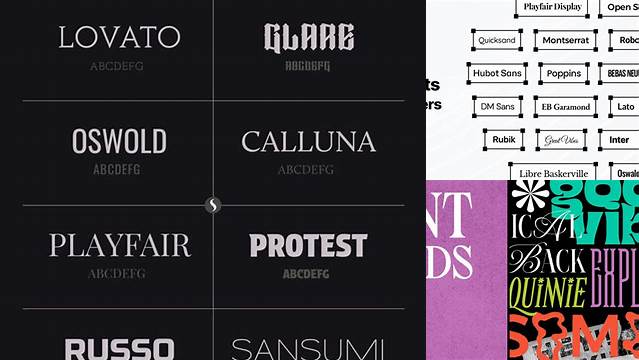
Top Free Fonts For Websites: Best Picks For 2024
Choosing the right fonts for your website can feel like a daunting task, but it's a crucial element in creating a visually appealing and user-friendly online experience. Think of fonts as the voice of your content β they convey tone, personality, and readability. In this article, we'll dive into the world of top free fonts for websites, exploring a variety of options that can elevate your design without breaking the bank. We're talking about fonts that not only look fantastic but also ensure your message comes across clearly and effectively. So, whether you're building a blog, an e-commerce store, or a portfolio, let's discover the perfect typography to make your website shine.
1. Best Sans-Serif Fonts for Modern Websites
When we talk about the top free fonts for websites, sans-serif fonts often take the spotlight, especially for modern designs. These fonts are characterized by their clean, minimalist look, lacking the small decorative strokes (serifs) found in traditional fonts. This makes them incredibly readable on screens, a crucial factor for web design. Consider popular choices like Roboto, Open Sans, and Lato, each offering a unique flavor while maintaining a sleek, contemporary feel. Roboto, for example, is known for its mechanical yet friendly aesthetic, making it versatile for various website types. Open Sans, with its open forms and neutral appearance, is another excellent option for body text, ensuring a pleasant reading experience. Lato, on the other hand, exudes warmth and elegance, perfect for websites aiming for a sophisticated touch. Selecting the right sans-serif font can significantly impact your site's overall aesthetic, providing a clean and accessible look that resonates with your audience. It's like giving your website a fresh, modern makeover β clean lines and clear communication are key!
2. Top Serif Fonts for Enhanced Readability
While sans-serif fonts dominate modern web design, serif fonts still hold a special place, particularly when enhanced readability is a priority. These fonts, distinguished by their small decorative strokes (serifs), can bring a touch of tradition and elegance to your website. Think of fonts like Playfair Display, Merriweather, and Crimson Text. Playfair Display is a classic choice for headings and titles, exuding sophistication and style. Merriweather, designed specifically for screen readability, offers a comfortable reading experience for longer texts. Crimson Text, inspired by classic book typography, lends a refined and scholarly feel to your content. When considering top free fonts for websites, the strategic use of serif fonts can add depth and character, improving the overall visual appeal and ensuring your message is delivered with clarity and grace. It's like adding a touch of timeless elegance to your online presence!
3. Google Fonts: A Treasure Trove of Free Options
Google Fonts is a goldmine when searching for top free fonts for websites. This vast library offers a plethora of options, from classic sans-serifs and elegant serifs to playful display fonts. What makes Google Fonts so appealing is its ease of use and seamless integration with web projects. You can browse and preview fonts directly on the Google Fonts website, then easily embed them into your site with just a few lines of code. This accessibility makes it a favorite among designers and developers. Popular choices like Montserrat, Raleway, and Oswald are just the tip of the iceberg. Montserrat, a geometric sans-serif, is perfect for creating a modern and urban feel. Raleway, with its elegant and slightly condensed form, works well for both headings and body text. Oswald, a reworked classic style, adds a touch of vintage charm to any design. Exploring Google Fonts opens up a world of typographic possibilities, allowing you to find the perfect fonts to match your brand and style, all without costing a dime.
4. Font Pairing: How to Combine Fonts Effectively
Font pairing is an art, and mastering it is crucial when aiming for a cohesive and visually appealing website. It's about finding the top free fonts for websites that complement each other, creating a harmonious balance between different typographic styles. A classic approach is to pair a sans-serif font with a serif font, using one for headings and the other for body text. For instance, combining Open Sans with Merriweather can create a clean and readable layout. Alternatively, you can pair fonts within the same family, using different weights and styles to create visual hierarchy. Think about using Montserrat for headings and its lighter weight variations for body text. The key is to ensure that the fonts you choose work together to enhance readability and reflect your brand's personality. A well-executed font pairing can elevate your website's design, making it more engaging and professional. Itβs like creating a beautiful melody with typography β each font playing its part in the overall harmony.
5. Font Size and Readability: Best Practices
Font size plays a pivotal role in readability, making it a crucial aspect to consider when choosing top free fonts for websites. The goal is to ensure your text is easily legible across different devices and screen sizes. Generally, a minimum font size of 16 pixels is recommended for body text on the web. This provides a comfortable reading experience for most users. Headings, of course, should be larger to create visual hierarchy and guide the reader through your content. Experimenting with different font sizes and line heights can significantly impact how your content is perceived. Too small, and your text becomes a strain to read; too large, and your layout can look cluttered. Finding the sweet spot ensures that your message is not only visually appealing but also easily accessible to your audience. It's like crafting the perfect invitation β ensuring everyone can read the details and feel welcome.
6. Font Weight and Style: Creating Visual Hierarchy
Font weight and style are powerful tools for creating visual hierarchy on your website. By using different weights (e.g., regular, bold, italic) and styles (e.g., normal, oblique), you can guide your reader's eye and emphasize key information. When selecting top free fonts for websites, consider the range of weights and styles available. A font family with multiple options provides greater flexibility in your design. For example, using a bold font weight for headings and a regular weight for body text can clearly distinguish different sections of your content. Italics can be used to highlight specific words or phrases, while different font styles can add visual interest. The strategic use of font weight and style not only improves readability but also enhances the overall aesthetic appeal of your website. It's like painting a picture with words β using different strokes and shades to create depth and dimension.
7. Web-Safe Fonts vs. Web Fonts: Understanding the Difference
Understanding the difference between web-safe fonts and web fonts is essential when optimizing your website's typography. Web-safe fonts are those that are pre-installed on most operating systems, ensuring they will display correctly for all users. Examples include Arial, Times New Roman, and Courier New. While these fonts offer reliability, they can also limit your design options. Web fonts, on the other hand, are hosted online and can be embedded into your website using services like Google Fonts or Adobe Fonts. This opens up a vast array of typographic possibilities, allowing you to choose from thousands of unique fonts. When considering top free fonts for websites, web fonts are often the preferred choice due to their design flexibility. However, it's crucial to optimize web fonts to ensure they load quickly and don't impact your website's performance. It's like choosing between a standard wardrobe and a custom-designed collection β web fonts offer the chance to create a truly unique and stylish look.
8. Font Licensing: What You Need to Know
Font licensing is a crucial aspect often overlooked when choosing top free fonts for websites. While many fonts are available for free, it's essential to understand the terms of their licenses to ensure you're using them legally. Most free fonts come with specific usage restrictions, such as whether they can be used for commercial projects or if attribution is required. Google Fonts, for instance, offers fonts under the Open Font License (OFL), which allows for both personal and commercial use, even in print. However, some free fonts may have more restrictive licenses, so it's always wise to check the details before incorporating them into your project. Ignoring font licensing can lead to legal issues, so taking the time to understand the terms ensures you're using your chosen fonts responsibly. Itβs like reading the fine print on a contract β making sure youβre fully aware of your rights and responsibilities.
9. Best Display Fonts for Eye-Catching Headlines
Display fonts are your secret weapon for crafting eye-catching headlines and titles that grab attention. These fonts are designed to make a statement, often featuring unique and decorative styles that set them apart from body text fonts. When considering top free fonts for websites, display fonts can add personality and flair to your design. Think of fonts like Bebas Neue, a clean and modern sans-serif perfect for headlines, or Oswald, a reworked classic style that exudes vintage charm. Playfair Display, a sophisticated serif font, is another excellent choice for headings, lending a touch of elegance to your site. The key is to use display fonts sparingly, reserving them for key titles and headings to create visual impact. A well-chosen display font can instantly elevate your website's aesthetic, making it more engaging and memorable. Itβs like adding a splash of color to a black-and-white canvas β creating a focal point that draws the eye.
10. Monospace Fonts: When to Use Them
Monospace fonts, where each character occupies the same horizontal space, have a unique and distinctive look. While not typically used for body text, they can be incredibly effective in specific contexts. When exploring top free fonts for websites, consider monospace fonts for displaying code snippets, technical documentation, or creating a retro, typewriter-inspired aesthetic. Fonts like Source Code Pro and Roboto Mono are popular choices in this category. Source Code Pro, designed specifically for coding environments, offers excellent readability and clarity. Roboto Mono, part of the Roboto family, provides a clean and modern monospace option. The consistent width of characters in monospace fonts makes them ideal for scenarios where alignment is crucial. Think of them as the organized and precise members of the font family β perfect for situations where consistency and clarity are paramount.
11. Hand-Drawn Fonts: Adding a Personal Touch
Hand-drawn fonts can inject a dose of personality and warmth into your website, making it feel more approachable and authentic. These fonts mimic the look of handwritten text, adding a personal touch that can resonate with your audience. When browsing top free fonts for websites, consider hand-drawn options like Patrick Hand or Indie Flower. Patrick Hand, with its casual and legible style, is perfect for creating a friendly and informal vibe. Indie Flower, on the other hand, exudes a playful and whimsical feel. Hand-drawn fonts are particularly effective for websites aiming for a creative or artistic aesthetic. However, it's essential to use them sparingly, as they can be less readable than traditional fonts for large blocks of text. Think of them as the handwritten note in a digital world β adding a personal touch that makes your message feel more genuine.
12. Best Fonts for E-commerce Websites
Choosing the right fonts for an e-commerce website is crucial for creating a trustworthy and professional online shopping experience. Your typography should not only be visually appealing but also ensure that product information and calls-to-action are clear and easy to read. When selecting top free fonts for websites geared towards e-commerce, consider options that balance elegance with clarity. Sans-serif fonts like Open Sans and Roboto are excellent choices for product descriptions and body text, providing a clean and modern look. For headings and product titles, you might opt for a slightly bolder sans-serif or a subtle serif font like Montserrat or Lato to add visual interest. The goal is to create a seamless and enjoyable shopping experience, where customers can easily find and understand product details. It's like setting the stage for a successful transaction β ensuring that every element, including typography, contributes to a positive impression.
13. Top Fonts for Blogs and Content Websites
Blogs and content websites thrive on readability, making font selection a critical factor in keeping readers engaged. When exploring top free fonts for websites in this category, prioritize fonts that offer a comfortable reading experience for longer texts. Serif fonts like Merriweather and Crimson Text are excellent choices for body text, as their serifs help guide the reader's eye across the page. For headings, consider using a sans-serif font like Roboto or Open Sans to create a clear visual hierarchy. The key is to choose fonts that work well together, ensuring your content is not only visually appealing but also easily digestible. Think of your fonts as the backbone of your content β providing the structure and support that allows your message to shine.
14. Fonts for Portfolio Websites: Showcasing Your Work
Portfolio websites are all about showcasing your work in the best possible light, and your font choices play a significant role in achieving this. When selecting top free fonts for websites for your portfolio, aim for typography that is both stylish and professional. A clean sans-serif font like Montserrat or Raleway can create a modern and sophisticated look, allowing your work to take center stage. For headings, you might consider a slightly bolder font or a display font that reflects your personal style. The goal is to create a visually appealing and easy-to-navigate website that highlights your skills and creativity. Think of your fonts as the frame around a masterpiece β enhancing the artwork without overshadowing it.
15. Font Loading: Optimizing Website Performance
Font loading can significantly impact your website's performance, so it's essential to optimize how your fonts are delivered. When incorporating top free fonts for websites, ensure you're using best practices to minimize load times. One common strategy is to use web fonts from a Content Delivery Network (CDN) like Google Fonts, which are optimized for fast delivery. Additionally, consider using font-display properties in your CSS to control how fonts are rendered during loading. This can prevent the dreaded flash of unstyled text (FOUT) or flash of invisible text (FOIT). Choosing only the font weights and styles you need can also reduce file sizes and improve loading times. Think of font loading as the delivery system for your typography β ensuring your fonts arrive promptly and efficiently without slowing down your website.
16. Best Fonts for Mobile-Friendly Websites
Creating a mobile-friendly website requires careful consideration of typography, as readability can be particularly challenging on smaller screens. When selecting top free fonts for websites optimized for mobile devices, prioritize fonts that are clear, legible, and well-spaced. Sans-serif fonts like Roboto, Open Sans, and Lato are excellent choices, as their clean lines ensure readability even at smaller sizes. It's also crucial to use appropriate font sizes and line heights to prevent text from feeling cramped or difficult to read. Testing your font choices on various devices is essential to ensure they look great and function well across different screen sizes. Think of your mobile typography as a pocket-sized message β ensuring your message is clear and accessible no matter the device.
17. Using Font Combinations for a Unique Look
Using font combinations effectively can give your website a unique and professional look. Pairing fonts involves selecting two or three fonts that complement each other, creating visual interest and hierarchy. When exploring top free fonts for websites, consider combining a serif font for headings with a sans-serif font for body text, or vice versa. For example, you might pair Playfair Display (serif) with Montserrat (sans-serif) or Roboto (sans-serif) with Merriweather (serif). Another approach is to use different weights and styles within the same font family, such as using a bold weight for headings and a regular weight for body text. The key is to ensure your font combinations enhance readability and reflect your brand's personality. Think of font combinations as a well-coordinated outfit β ensuring each piece complements the others to create a cohesive and stylish look.
18. The Importance of Line Height and Letter Spacing
Line height and letter spacing are often overlooked but play a crucial role in readability. Adjusting these properties can significantly impact how easily your text is read and understood. When selecting top free fonts for websites, pay attention to the default line height and letter spacing, and adjust them as needed. Generally, a line height of 1.5 to 1.7 times the font size is recommended for body text. This provides enough space between lines, making the text easier to scan. Similarly, adjusting letter spacing can improve readability, particularly for display fonts. Think of line height and letter spacing as the breathing room for your text β ensuring each word and line has enough space to be easily seen and understood.
19. Best Free Fonts for Minimalist Website Designs
Minimalist website designs often rely on clean and simple typography to convey their message effectively. When selecting top free fonts for websites with a minimalist aesthetic, prioritize fonts that are understated yet elegant. Sans-serif fonts like Open Sans, Lato, and Roboto are excellent choices, as their clean lines and neutral appearance complement minimalist designs. A lighter font weight can further enhance the minimalist feel. The key is to choose fonts that don't compete with the content but rather support it, allowing your message to take center stage. Think of your fonts as the supporting cast in a minimalist production β playing a crucial role without stealing the spotlight.
20. Choosing Fonts That Reflect Your Brand Personality
Your font choices should reflect your brand's personality, conveying the right tone and message to your audience. When exploring top free fonts for websites, consider how each font aligns with your brand values and identity. For example, a playful and whimsical brand might opt for a hand-drawn font or a bold display font, while a professional and sophisticated brand might choose a classic serif font or a clean sans-serif. Think about the emotions and associations you want your brand to evoke, and select fonts that align with those feelings. It's like choosing the right outfit for an occasion β ensuring your attire reflects the tone and purpose of the event.
21. How to Use Free Font Resources Effectively
There are numerous free font resources available online, but knowing how to use them effectively is crucial for finding the perfect fonts for your website. When searching for top free fonts for websites, start with reputable sources like Google Fonts, Font Squirrel, and DaFont. These platforms offer a wide range of options and often provide information about font licenses and usage restrictions. Use filters and categories to narrow down your search, and preview fonts in different contexts to see how they look in your design. It's also helpful to read reviews and recommendations from other designers to get insights into font quality and usability. Think of free font resources as a treasure trove β knowing how to navigate and explore them effectively will help you uncover hidden gems.
22. Avoiding Common Font Mistakes in Web Design
Avoiding common font mistakes is essential for creating a professional and user-friendly website. One common error is using too many different fonts, which can create a cluttered and inconsistent look. Stick to a maximum of two or three fonts to maintain visual harmony. Another mistake is choosing fonts that are difficult to read, particularly for body text. Prioritize readability and legibility when selecting fonts. Additionally, ensure your fonts are properly sized and spaced for optimal viewing on different devices. When browsing top free fonts for websites, keep these pitfalls in mind to ensure your typography enhances rather than detracts from your design. Think of these mistakes as typographical traps β being aware of them will help you navigate the world of font selection with confidence.
23. Best Practices for Font Accessibility
Font accessibility is a critical consideration for ensuring your website is inclusive and usable by everyone, including individuals with visual impairments. When selecting top free fonts for websites, prioritize fonts that are clear, legible, and well-spaced. Ensure your font sizes are large enough for easy reading, and provide sufficient contrast between text and background colors. Avoid using fonts that are overly decorative or stylized, as these can be difficult to read. Additionally, provide alternative text options and use semantic HTML to improve accessibility for screen readers. Think of font accessibility as creating a welcoming space for all users β ensuring everyone can access and enjoy your content.
24. How Font Choice Impacts User Experience
Font choice has a direct impact on user experience, influencing how visitors perceive and interact with your website. The right fonts can enhance readability, create visual interest, and reinforce your brand's personality. Conversely, poor font choices can lead to a frustrating user experience, making your site difficult to navigate and read. When exploring top free fonts for websites, consider how each font will impact your users. Prioritize readability for body text, and use display fonts sparingly to draw attention to key elements. Ensure your fonts are well-sized and spaced for optimal viewing on different devices. Think of font choice as the voice of your website β ensuring it speaks clearly and engagingly to your audience.
25. Trends in Web Typography for 2024
Staying up-to-date with trends in web typography can help you create a modern and stylish website. In 2024, expect to see a continued emphasis on clean and legible sans-serif fonts, as well as the resurgence of classic serif fonts for a touch of elegance. Bold typography and large font sizes are also popular, creating visual impact and drawing attention to key messages. Font pairing remains a key trend, with designers experimenting with different combinations to create unique and engaging designs. When browsing top free fonts for websites, keep these trends in mind to ensure your typography is current and relevant. Think of these trends as the fashion runways of the web β offering inspiration and guidance for your typographic style.
26. Best Font Resources for Inspiration
Finding inspiration for your font choices can be a creative and rewarding process. Numerous resources online can help you discover new fonts and explore different typographic styles. Websites like Typewolf, Fonts in Use, and Awwwards showcase examples of excellent typography in web design, providing a wealth of inspiration. Font blogs and articles can offer insights into font trends and best practices. Additionally, exploring design portfolios and case studies can help you see how different fonts are used in real-world projects. When searching for top free fonts for websites, use these resources to fuel your creativity and find the perfect fonts for your design. Think of these resources as a muse for your typography β offering ideas and encouragement to help you craft a visually stunning website.
27. Using Font Display Property for Better Loading
The font-display property in CSS offers a powerful way to control how fonts are rendered during loading, improving your website's perceived performance. This property allows you to specify how the browser should handle font loading, preventing issues like the flash of unstyled text (FOUT) or flash of invisible text (FOIT). When incorporating top free fonts for websites, using font-display can create a smoother and more visually appealing loading experience. Options like font-display: swap tell the browser to display the text immediately using a fallback font, then swap to the custom font once it's loaded. Other options include font-display: fallback, font-display: optional, and font-display: block, each offering different approaches to font loading. Think of font-display as the traffic controller for your fonts β ensuring they arrive smoothly and efficiently without causing delays.
28. How to Embed Free Fonts on Your Website
Embedding free fonts on your website is a straightforward process, especially when using resources like Google Fonts. Most font providers offer easy-to-use code snippets that you can simply copy and paste into your website's HTML or CSS. When selecting top free fonts for websites from Google Fonts, for example, you can choose the font styles and weights you need, and Google Fonts will generate the necessary code. This code typically includes a <link> tag for your HTML and CSS rules to apply the font to your text. Alternatively, you can download the font files and host them on your own server, using CSS @font-face rules to define the font. Think of embedding fonts as adding the finishing touch to your design β bringing your typography to life on the web.
29. Best Font File Formats for Web Use
Choosing the right font file formats is crucial for ensuring your fonts display correctly and load efficiently on the web. Modern web browsers support various font formats, but some are more optimized for web use than others. When incorporating top free fonts for websites, prioritize formats like WOFF (Web Open Font Format) and WOFF2, which are specifically designed for the web and offer excellent compression and performance. Other formats, like TTF (TrueType Font) and OTF (OpenType Font), are also widely supported but may result in larger file sizes. Using WOFF2 is generally recommended, as it provides the best compression and performance in modern browsers. Think of font file formats as the shipping containers for your typography β ensuring your fonts arrive safely, efficiently, and ready to use.
30. Future Trends in Free Web Fonts
The world of web typography is constantly evolving, and several exciting trends are shaping the future of free web fonts. Expect to see a continued focus on variable fonts, which allow for a wide range of stylistic variations within a single font file, offering greater flexibility and efficiency. AI and machine learning are also playing a role in font design, with new tools and technologies enabling the creation of more sophisticated and personalized typography. Additionally, there's a growing emphasis on font accessibility, with designers and developers prioritizing fonts that are clear, legible, and inclusive. As you explore top free fonts for websites, keep an eye on these trends to ensure your typography remains cutting-edge and user-friendly. Think of these future trends as the next chapter in web typography β offering a glimpse into the exciting possibilities that lie ahead.